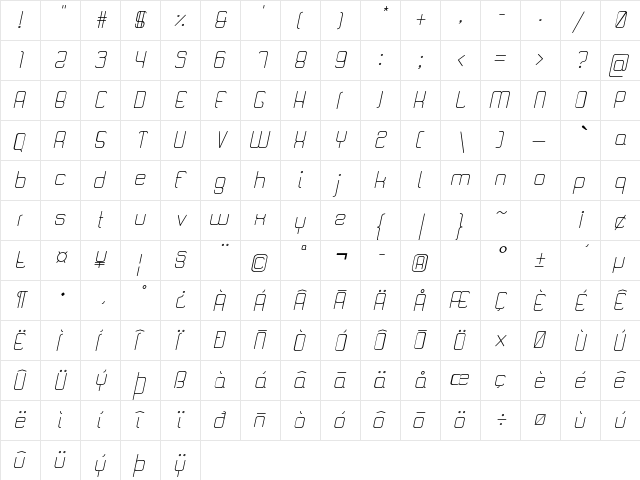
Quattro Light Italic
Design Context for Quattro Typeface
Quattro takes a measured approach to typography — its balanced proportions and neutral character make it a reliable workhorse for both digital and print work. Its italic angle brings a sense of urgency and motion to the letterforms. The delicate stroke weight brings airiness and refinement to layouts.
Pro Tip: Use Quattro for emphasis, pull quotes, and subheadings where its slanted energy can add rhythm to the layout.